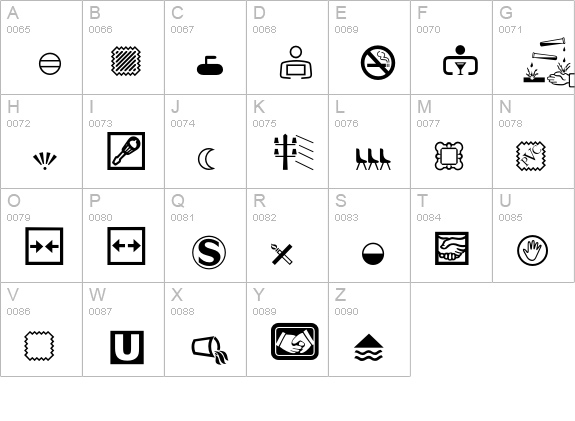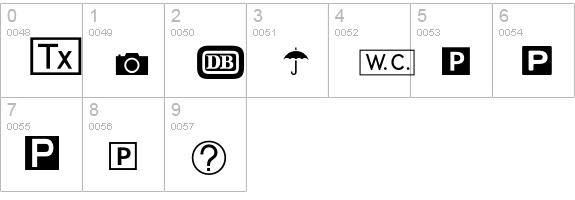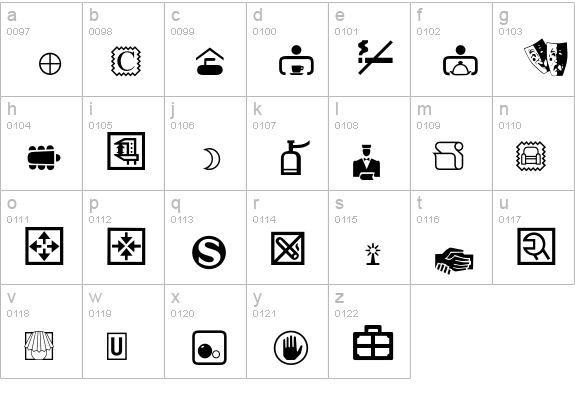
CommunicationsP04 Font Details
CommunicationsP04 font is a versatile and modern typeface that is perfect for all your communication needs. With its sleek and professional design, this font is sure to make your projects stand out. Whether you are creating a flyer, poster, or website, CommunicationsP04 font will bring a touch of elegance to your work. What sets CommunicationsP04 font apart is that it is completely free to use. That's right, you can download this font at FontsMarket.com at no cost. This means you can enhance your designs without breaking the bank. Don't miss out on the opportunity to add CommunicationsP04 font to your font library today!